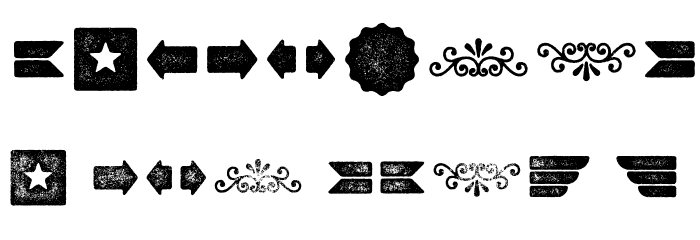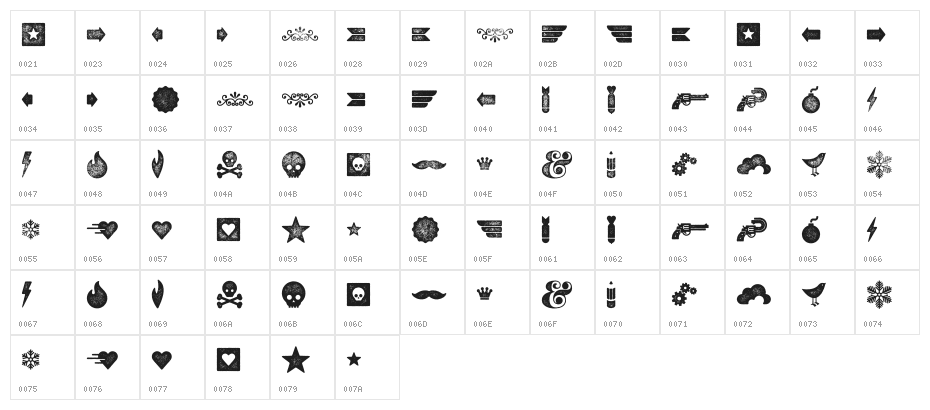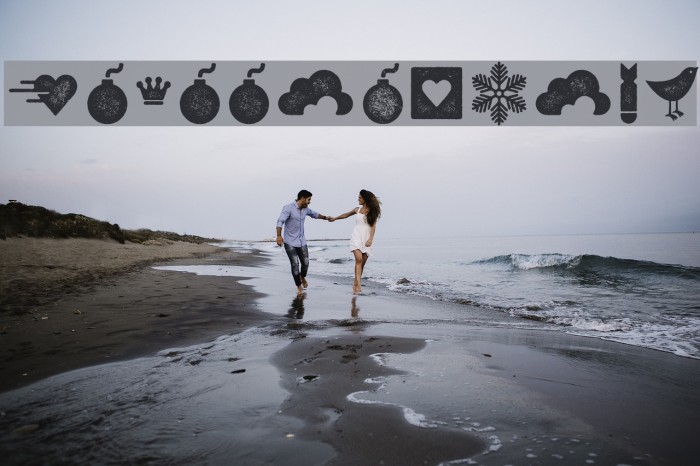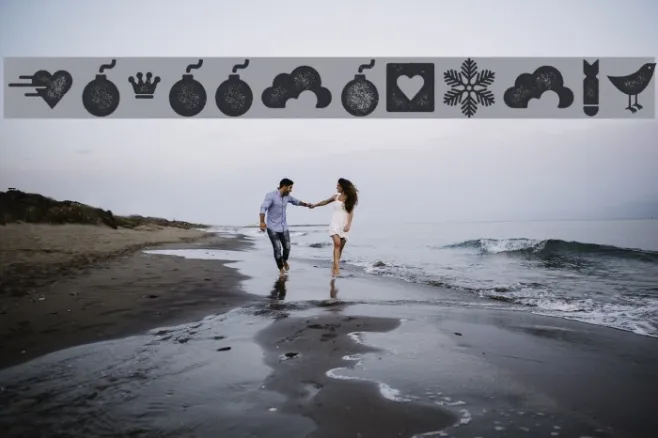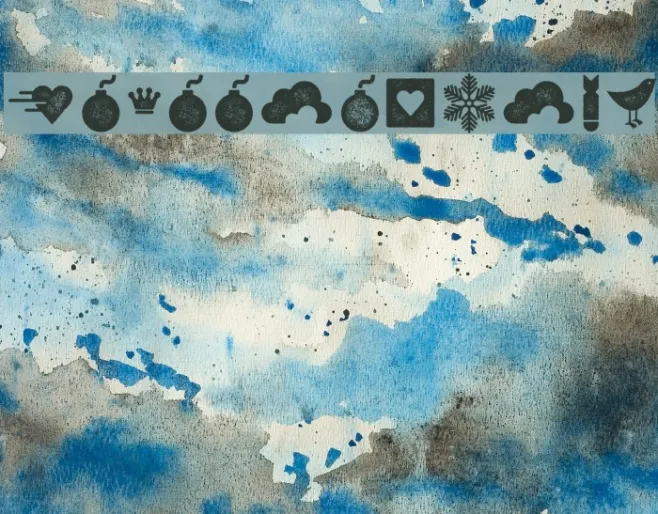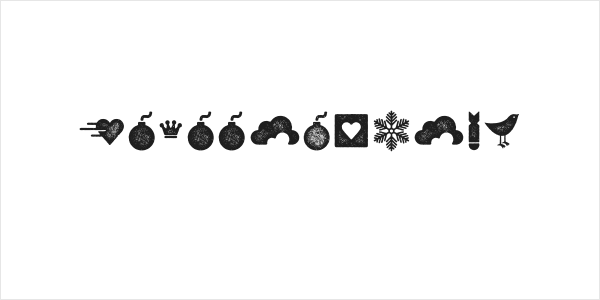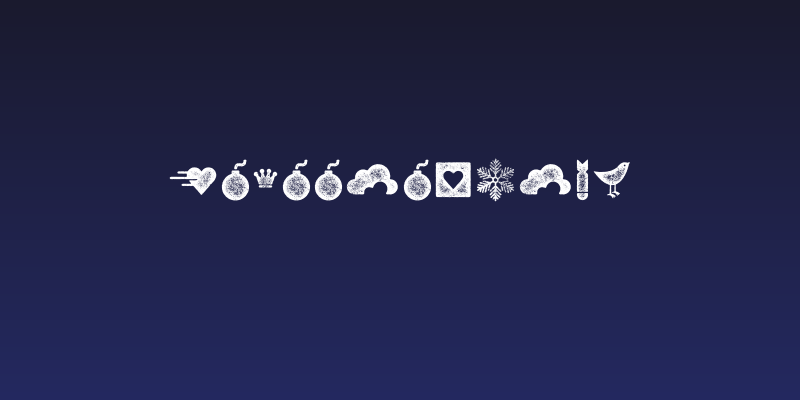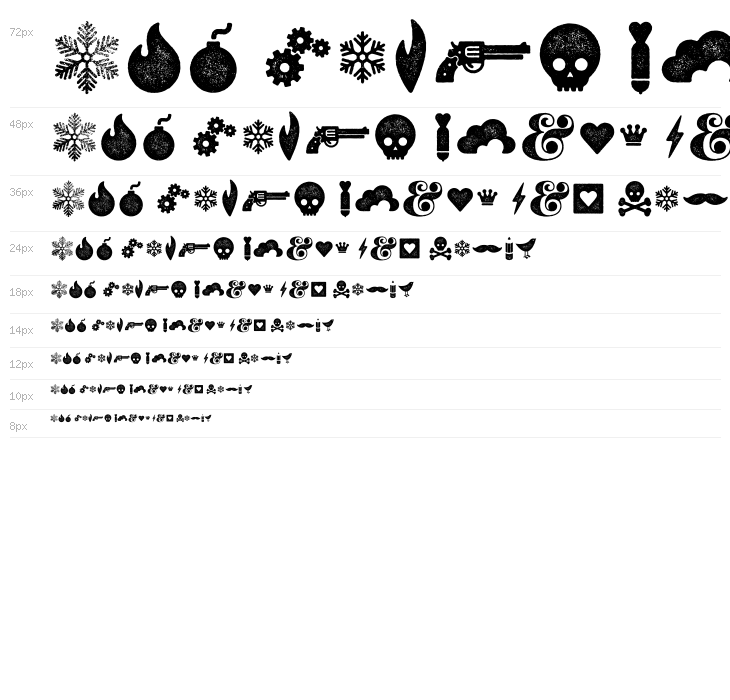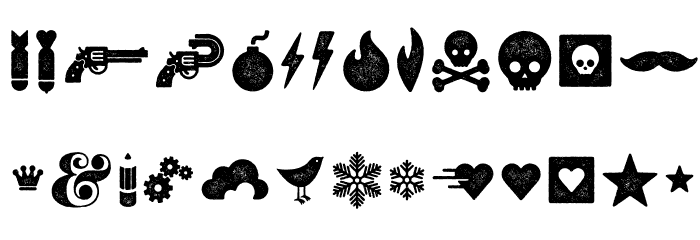
VeneerExtras Font
VeneerExtras Description
This collection features a variety of decorative symbols and icons with a distressed, vintage appearance. The elements include guns, bombs, lightning bolts, flames, skulls, and stars, each rendered with a textured, worn effect that gives them a rustic and aged look. The icons are bold and striking, with a consistent use of heavy black lines and a grunge texture that adds depth and character. The set also includes ornamental designs like crowns, ampersands, and arrows, all maintaining the same distressed style. These elements are perfect for adding a touch of vintage flair to designs, evoking a sense of nostalgia and ruggedness.
| Use Case | Logos, Decorative elements, Posters |
| Proposed Projects | Ideal for retro-themed posters, album covers, vintage branding, and decorative design projects. |